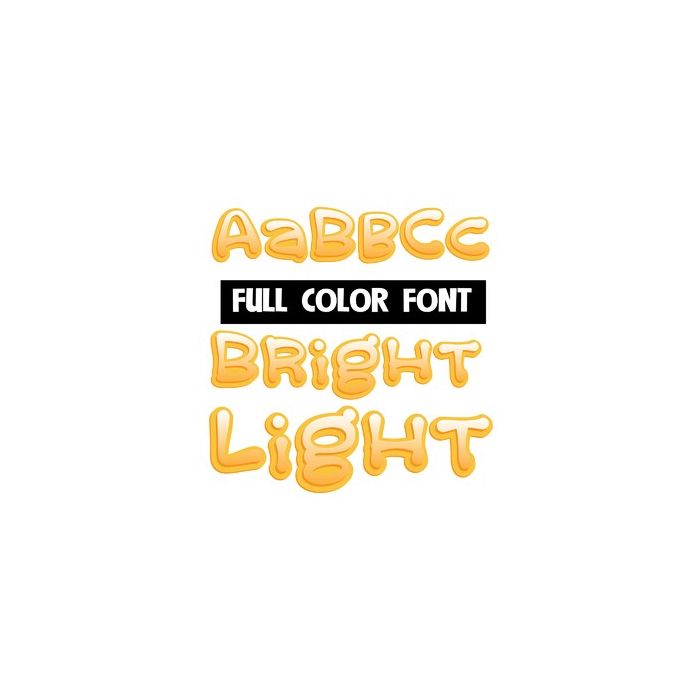
This full-color font features bright yellow, lit-up lettering. This font works best for titles, displays, posters and more. Please note color fonts will show as black in non compatible programs. This font type is compatible with Silhouette Studio.